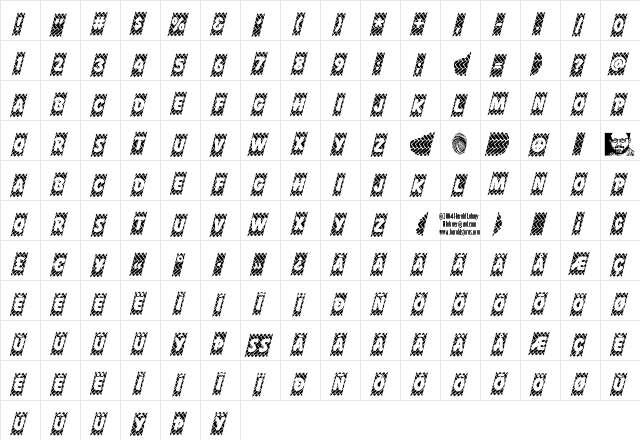
SkidzExtra Regular Free Font
SkidzExtra Regular
Design Context for SkidzExtra
SkidzExtra is a composed and adaptable typeface that performs quietly and consistently across a wide range of design contexts.